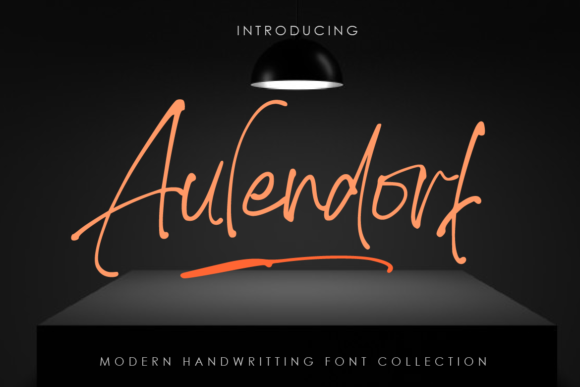
The Elegant Aulendorf Font: A Designer’s New Best Friend
I’ll never forget the time I was working on a branding project for a luxury wedding planner. I had spent hours scouring the internet for the perfect font, but nothing seemed quite right. That was until I stumbled upon Aulendorf. Its stylish and thin vibe instantly caught my eye, and I knew I had found the one. In this article, I’ll share my experience with Aulendorf, its features, and how to make the most of this beautiful font.
First Impressions: What I Love About Aulendorf
Aulendorf feels equally charming and elegant, making it perfect for a wide range of design projects. Here are some of the things that I love about Aulendorf:
• ✨ Stylish and thin vibe: Aulendorf has a unique and sophisticated look that will elevate any design.
• ✅ PUA encoded: This means that you can access all of the glyphs and swashes with ease, giving you endless creative possibilities.
• 💫 Elegant and charming: Aulendorf is perfect for designs that require a touch of sophistication and whimsy.
Honest Review: The Not-Perfect-but-Almost Section
While Aulendorf is an amazing font, there are a few small quirks to be aware of:
• 🤔 Limited use in body text: Due to its thin and elegant nature, Aulendorf may not be the best choice for body text. It’s better suited for headings, titles, and short paragraphs.
The Story Behind Aulendorf
Aulendorf is a font designed with elegance and charm in mind. While I couldn’t find any information on the designer’s inspiration, it’s clear that Aulendorf was created to bring a touch of sophistication to any design. Whether you’re a designer, crafter, or creative hobbyist, Aulendorf is sure to become a favorite.
What is Aulendorf font? Aulendorf is a stylish and elegant font perfect for designs that require a touch of sophistication.